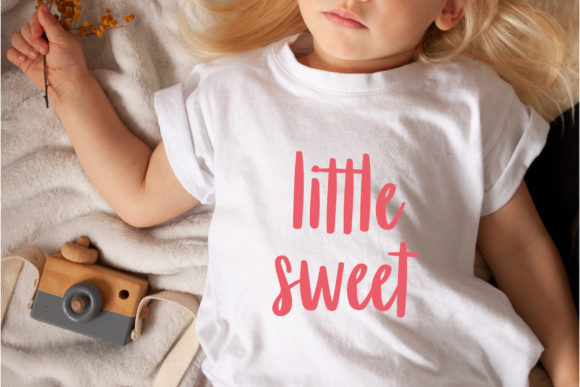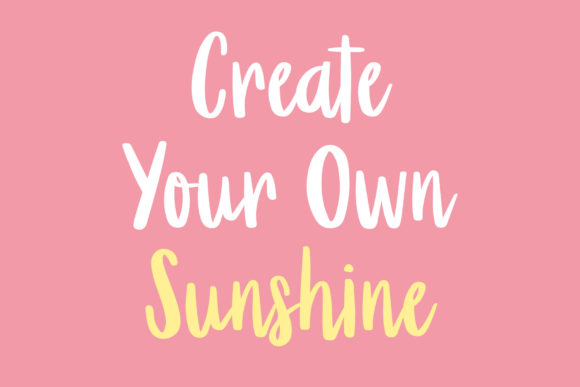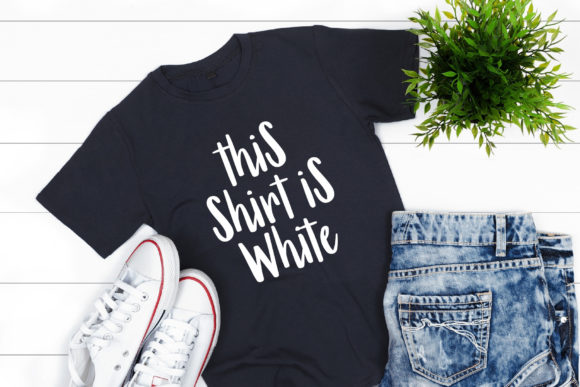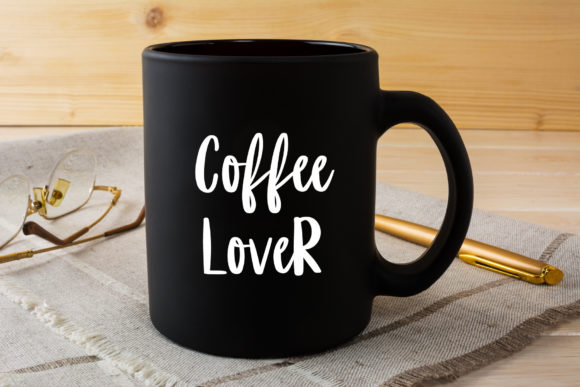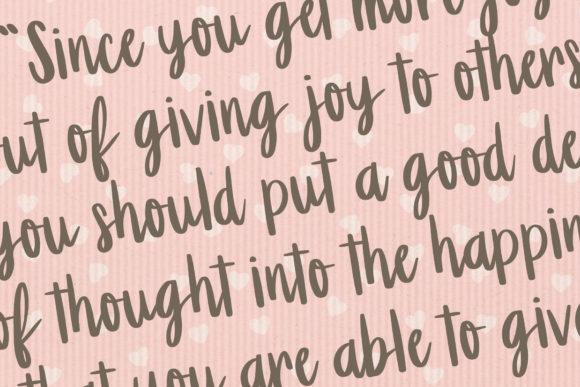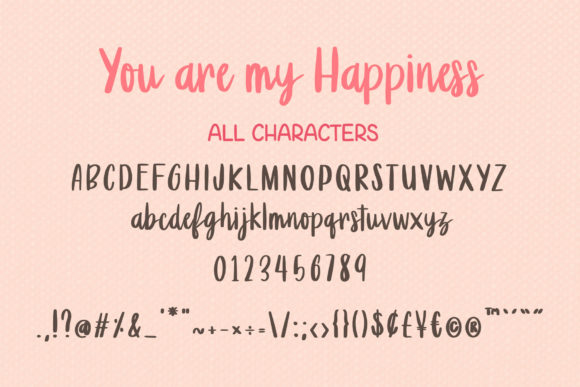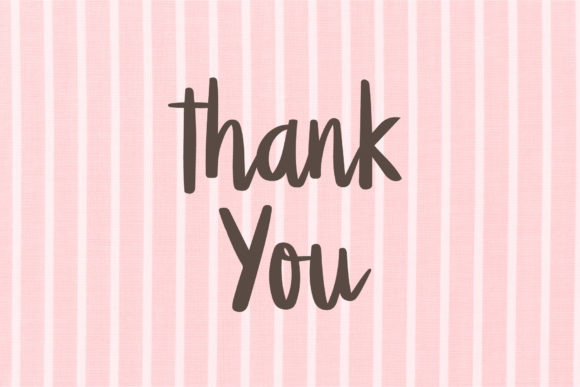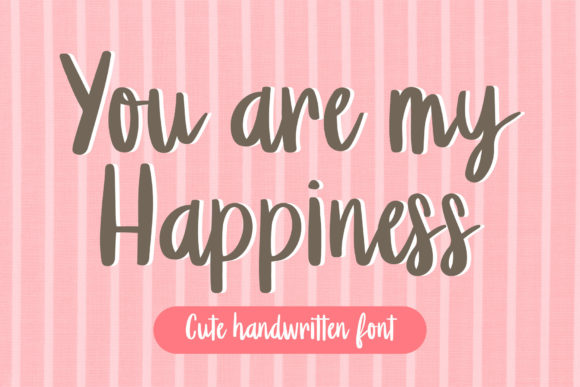
You Are My Happiness Font
About You Are My Happiness Font
You are my Happiness is a relaxed, casual and sweet handwritten font. It can be used for logos, branding, invitations, cards, social media posts and so much more. Have fun with this beautiful font and explore its endless variations.